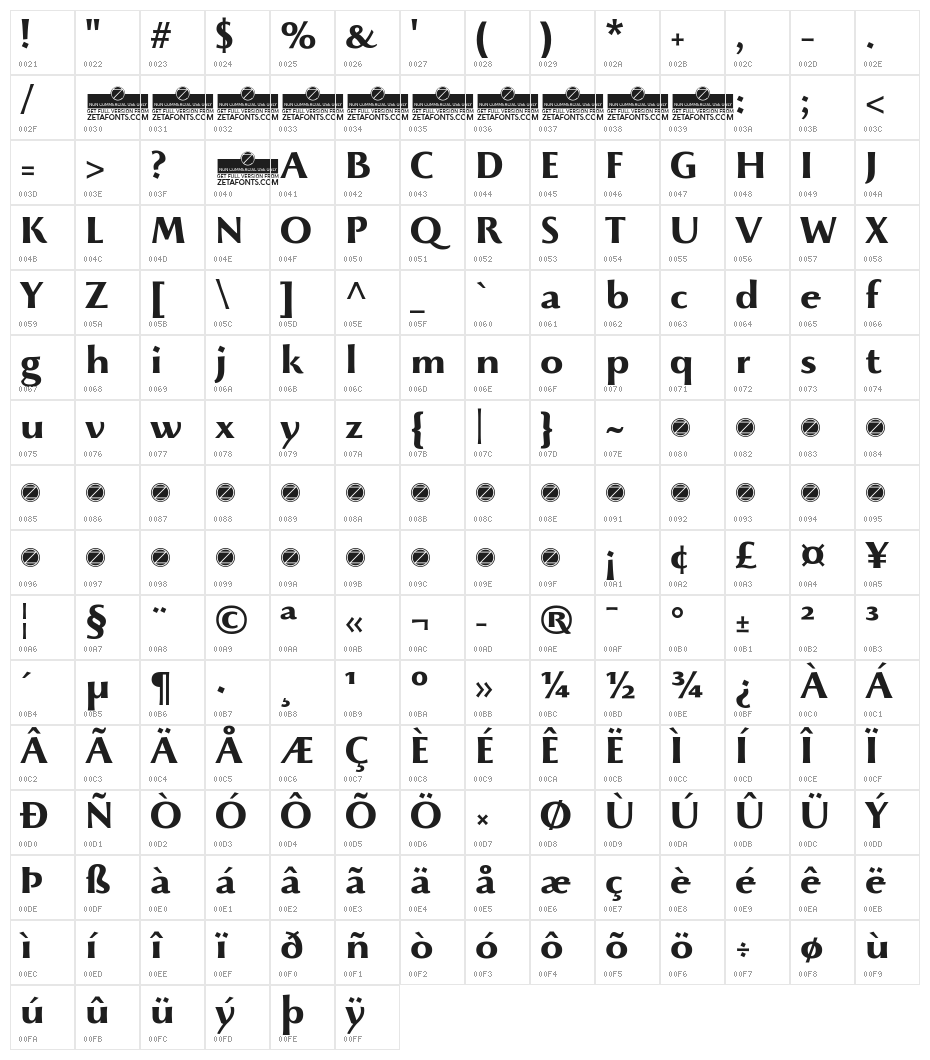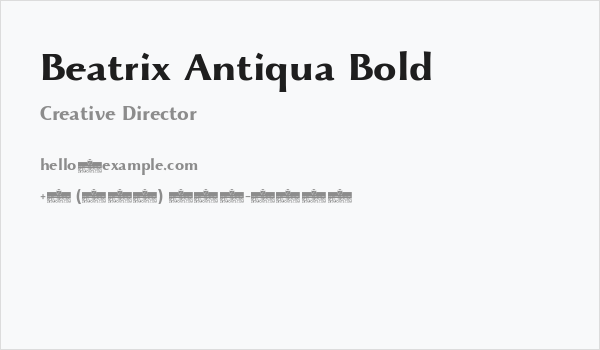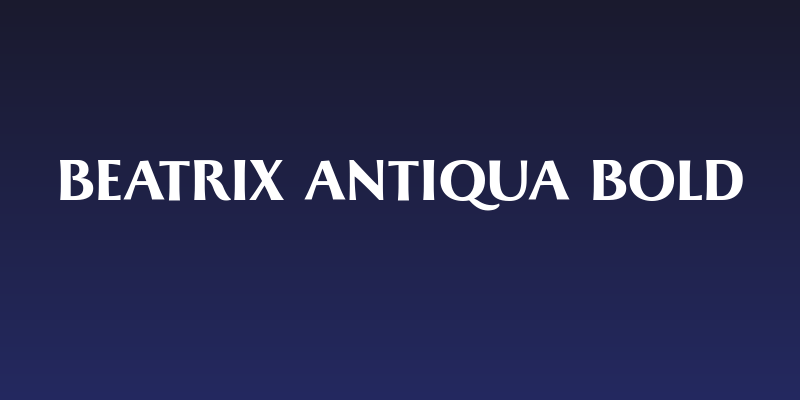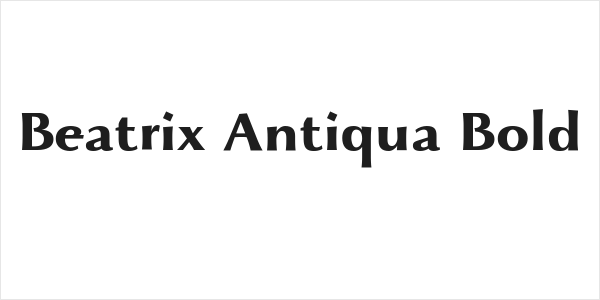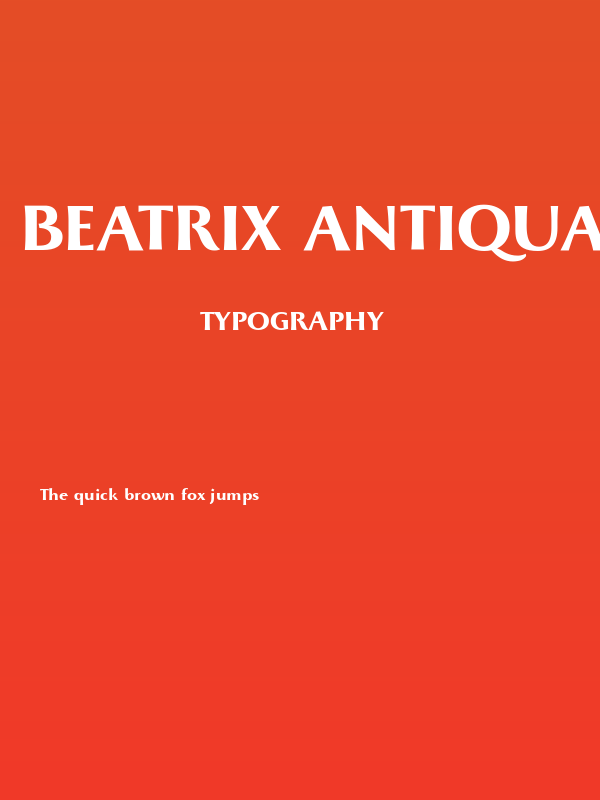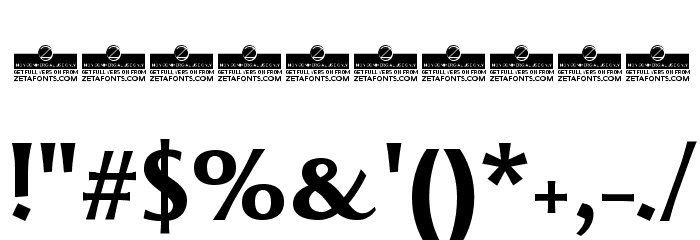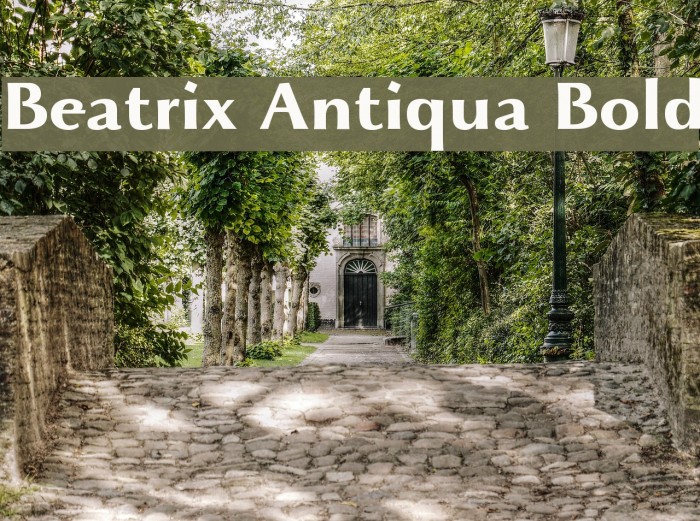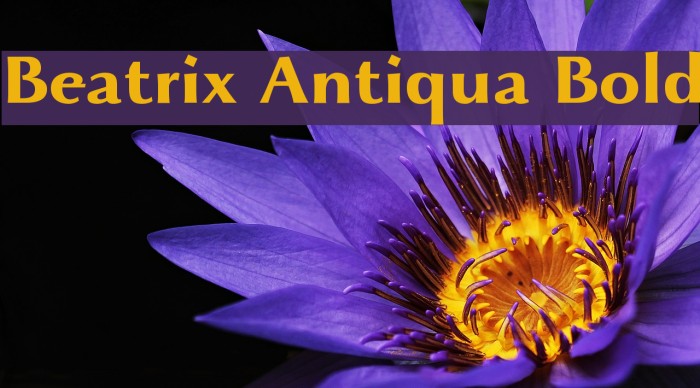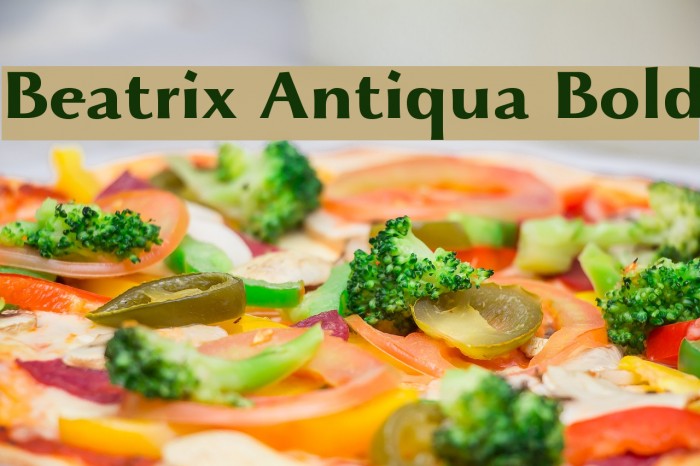
Beatrix Antiqua Bold Font
Beatrix Antiqua Bold Description
This font features a bold and striking design with a classic serif style. The uppercase letters are strong and commanding, with a slight curvature that adds elegance. The lowercase letters maintain a consistent weight, offering a harmonious balance between readability and aesthetic appeal. The numerals are clear and distinct, making them suitable for various applications. Special characters are well-defined, enhancing the font's versatility. Overall, this font exudes a timeless quality, perfect for projects that require a touch of sophistication.
| Overall Style | Classic |
| Use Case | Headlines, Body text, Logos |
| Proposed Projects | Ideal for book covers, editorial design, branding, and formal invitations. |